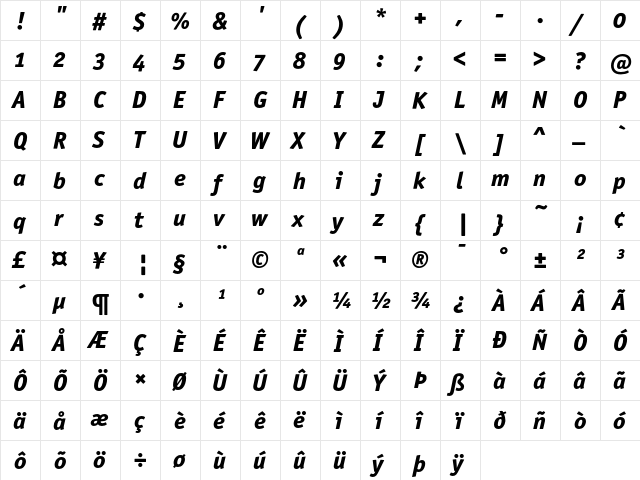
OfficinaSanITC ExtraBoldItalOS Font Preview
OfficinaSanITC ExtraBoldItalOS
Design Context for OfficinaSanITC Typeface
OfficinaSanITC offers clean, dependable letterforms without strong stylistic allegiance, making it a practical choice for designers who need flexibility. The heavy weight commands attention and anchors typographic hierarchies.